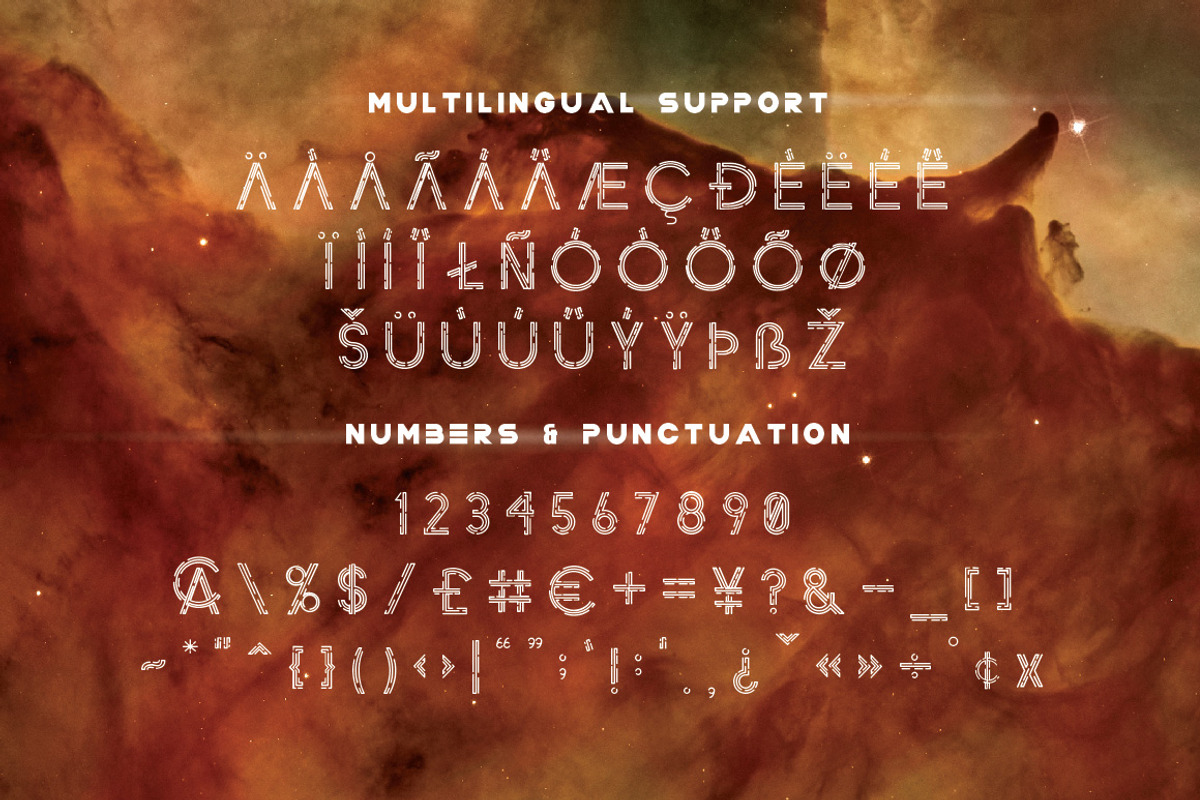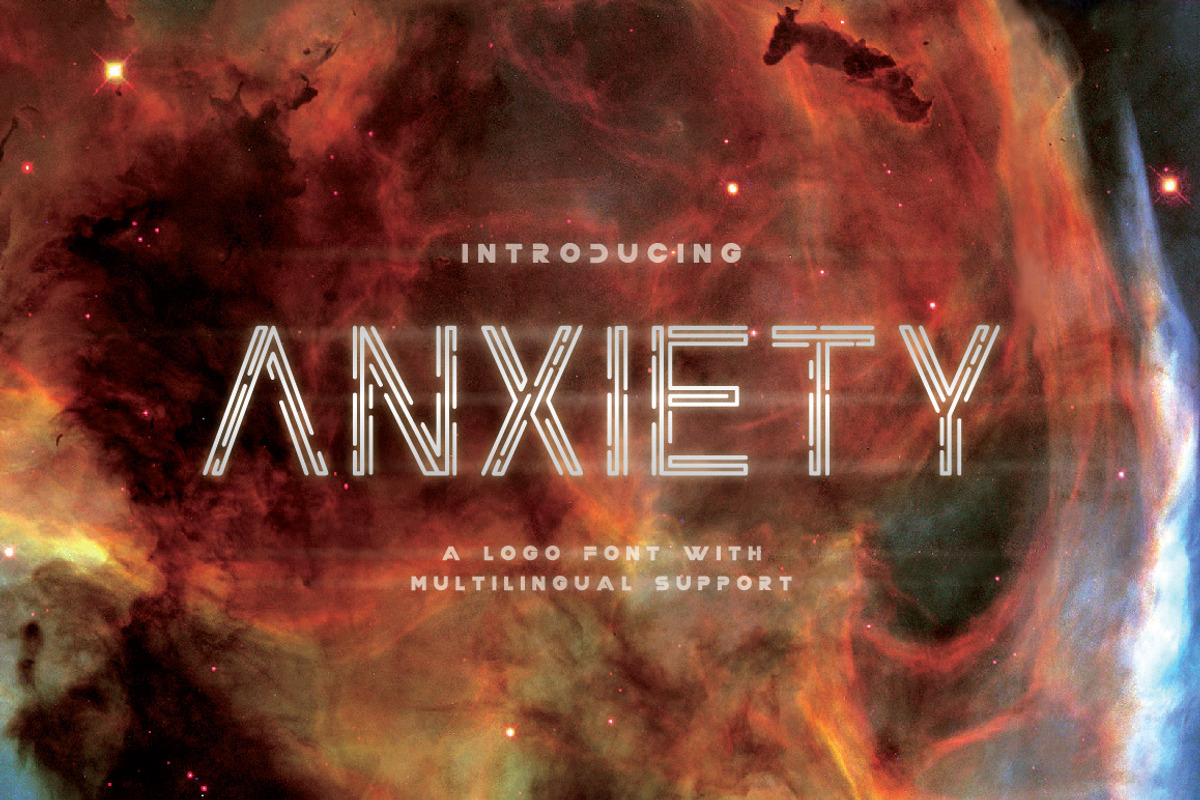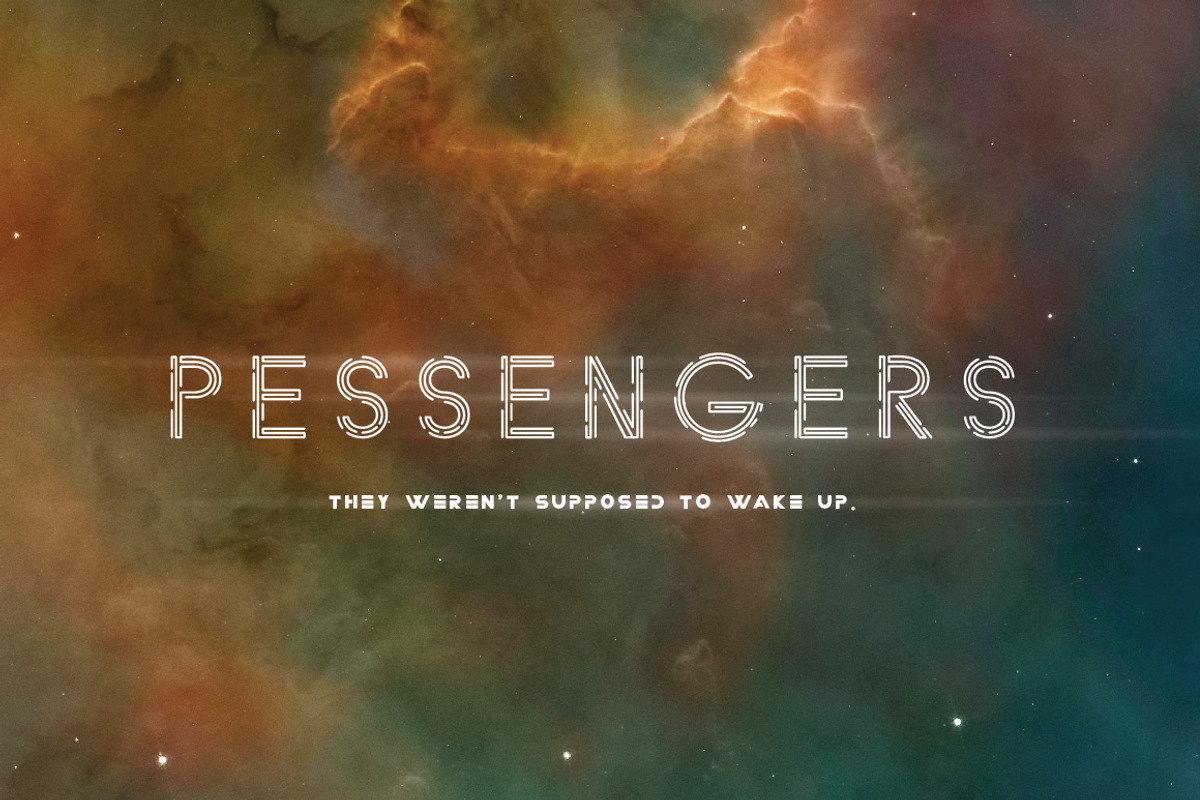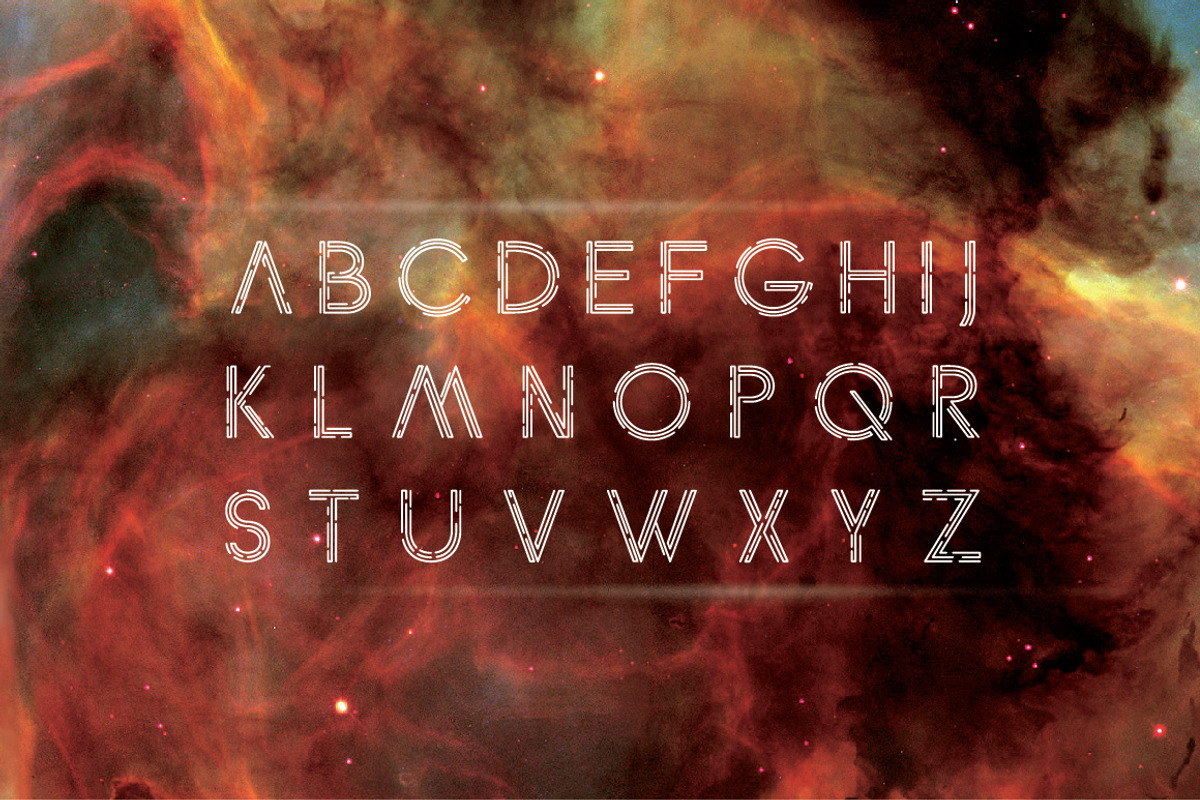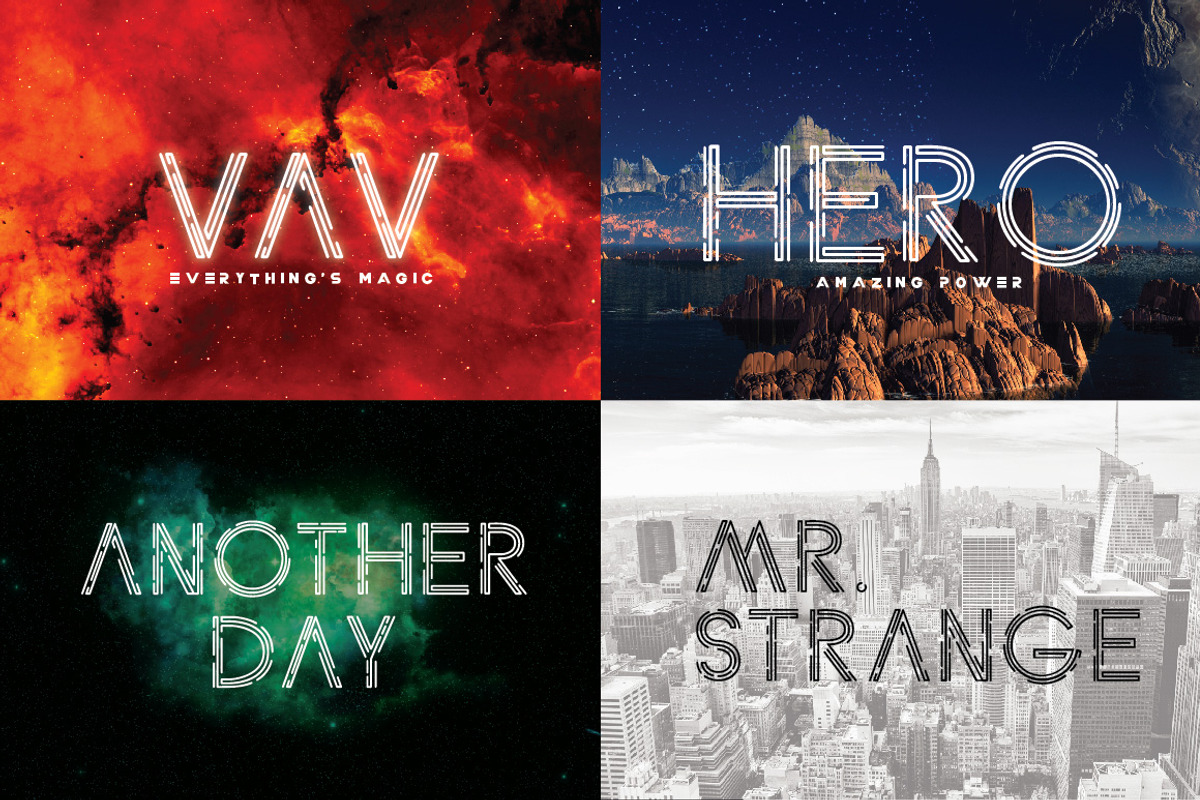
Anxiety Font
Anxiety Font by Drizy is a font selected for branding, posters, packaging, typography.
- a new logo font with multilingual support, inspired from the feeling of strangulation that I visualized into the font's design .
- With same upper & lower case characters, multilingual letters, numbers, and punctuation.
Why Anxiety Font is worth a look
Anxiety Font by Drizy fits naturally into Branding, posters, packaging, typography.